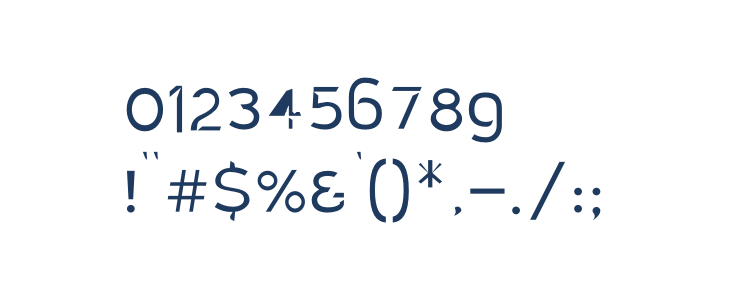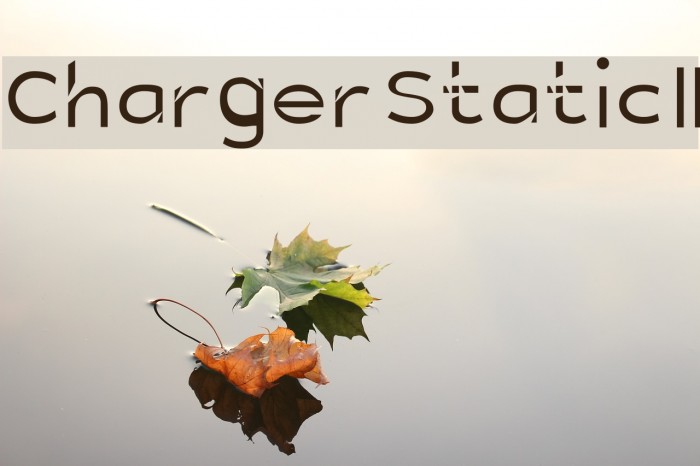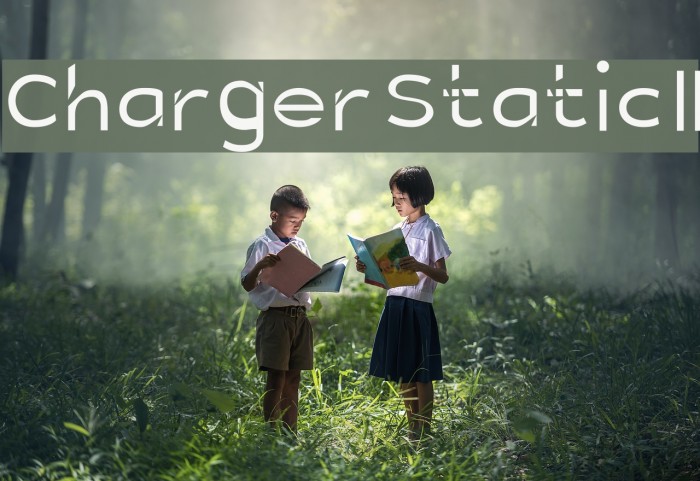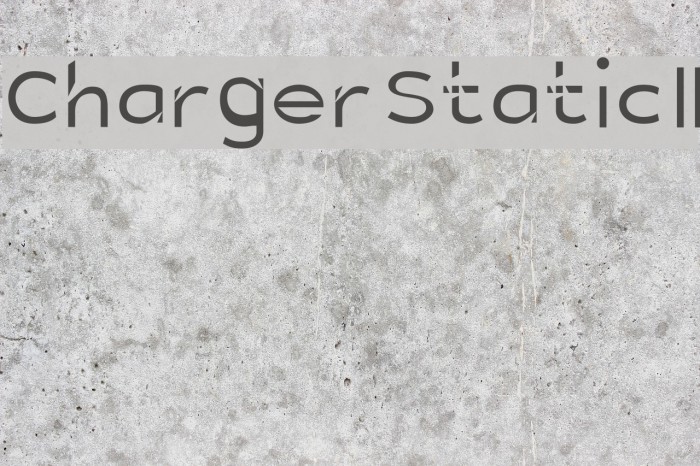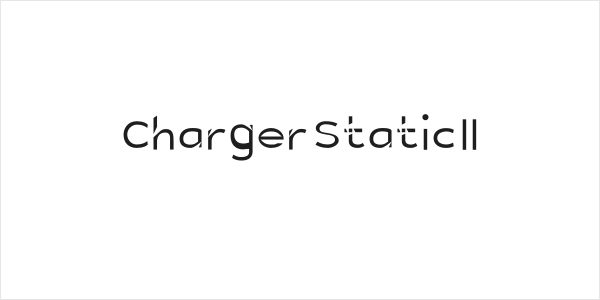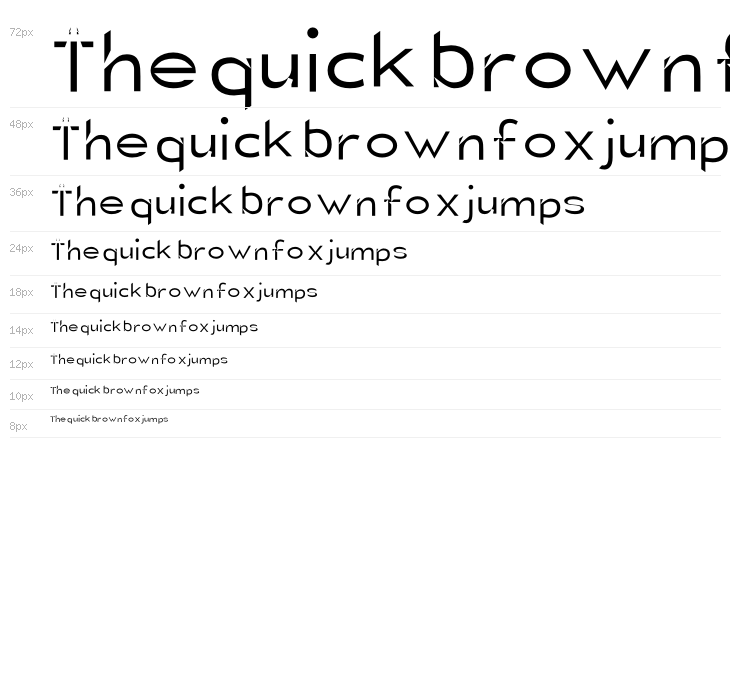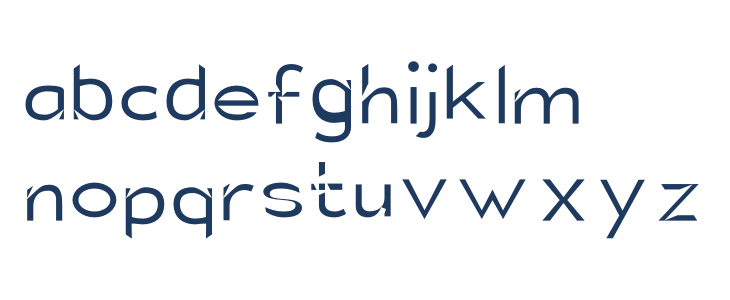
Charger Static II Font
Charger Static II Description
This font exhibits a modern and futuristic design with a geometric structure. The characters are crafted with sharp angles and clean lines, giving it a sleek and contemporary appearance. The uppercase letters are bold and assertive, while the lowercase letters maintain a consistent style with a slightly softer touch. The numerals are clear and distinct, ensuring readability. Special characters are designed to match the overall aesthetic, providing a cohesive look. The font's unique style makes it suitable for projects that require a modern and innovative feel.